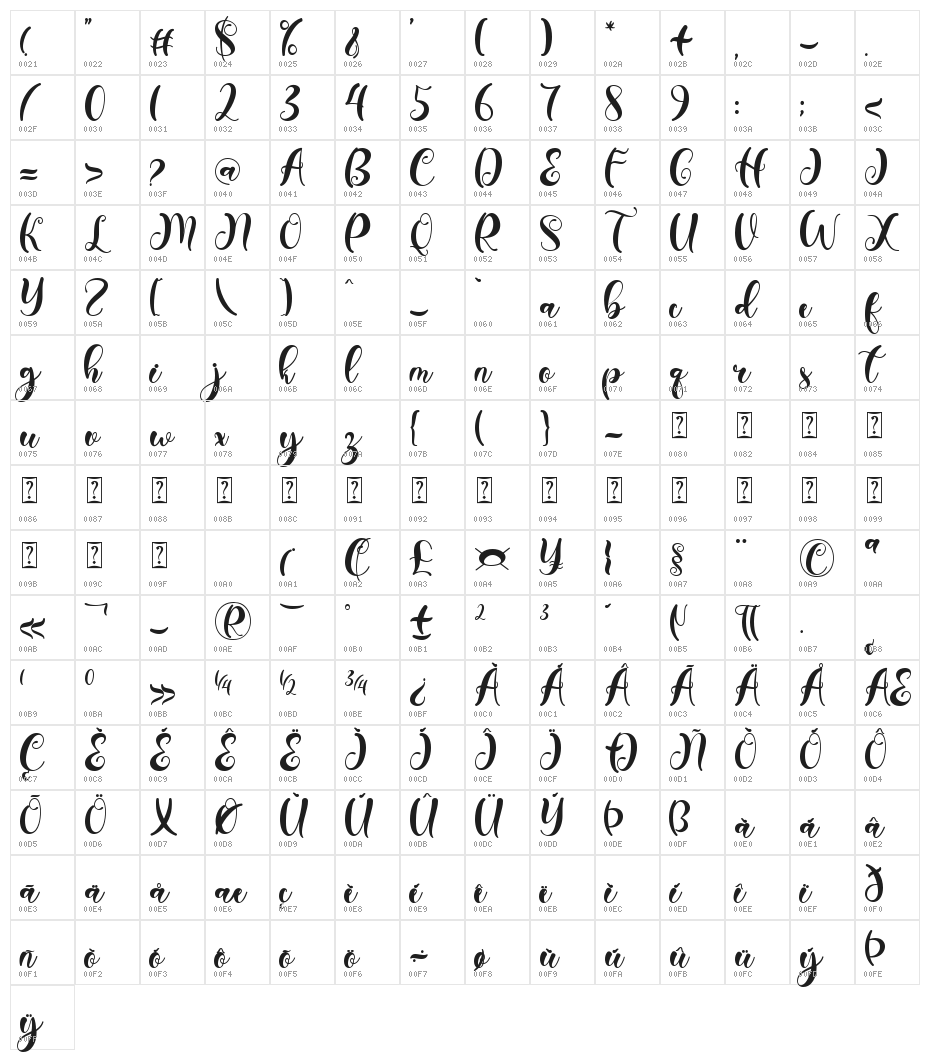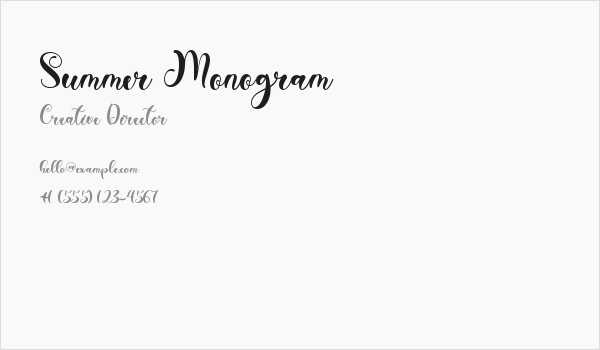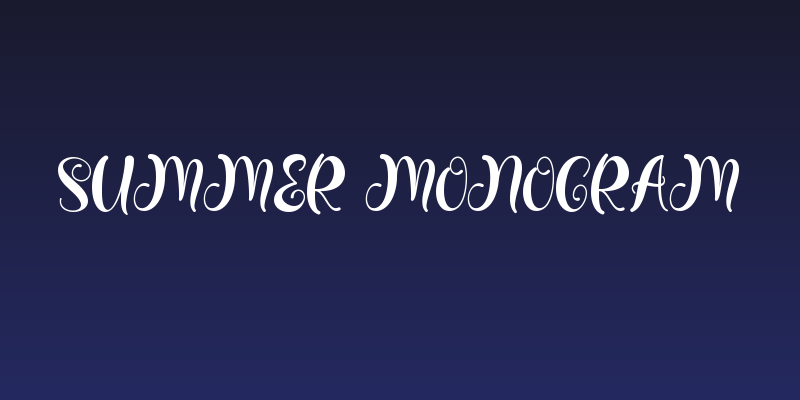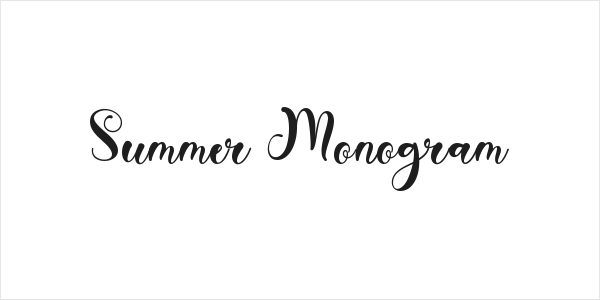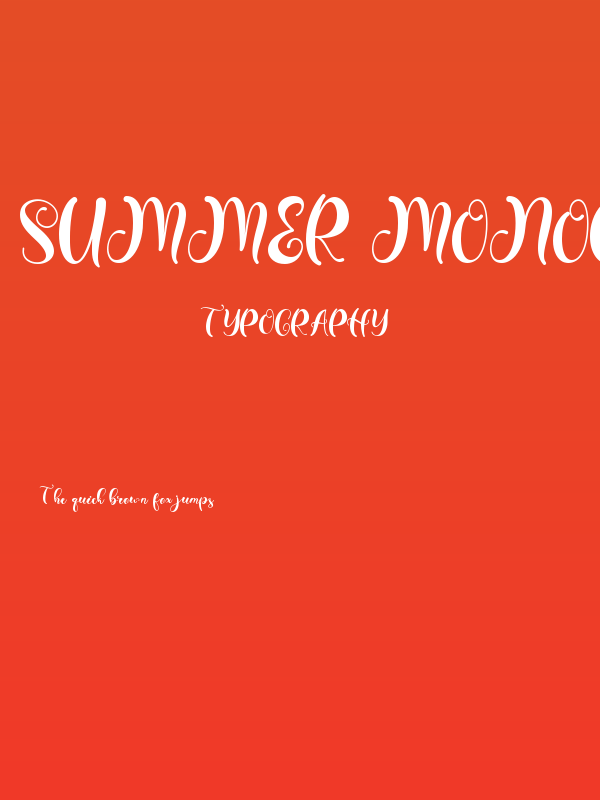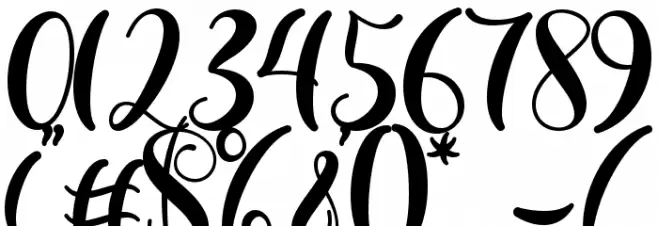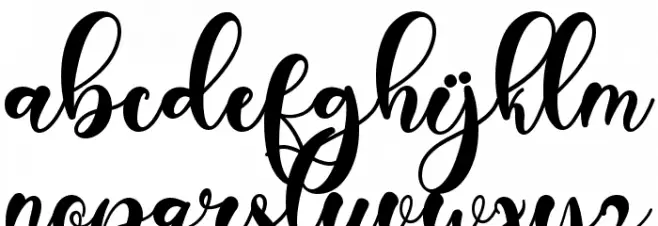
Summer Monogram Font
Summer Monogram Description
This font features a whimsical and elegant script style, characterized by its flowing, interconnected letters and decorative swirls. The uppercase letters are bold and prominent, with a playful yet sophisticated flair, while the lowercase letters maintain a consistent, cursive flow. The numerals are distinct and stylish, complementing the overall aesthetic. Special characters are creatively integrated, enhancing the font's decorative appeal. This font is ideal for adding a touch of elegance and personality to any design project.
| Proposed Projects | Ideal for wedding invitations, greeting cards, branding, and decorative signage. |